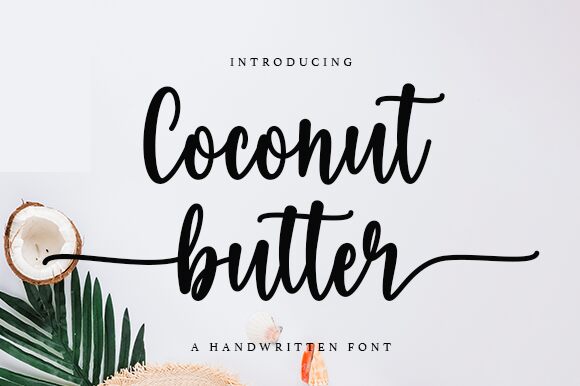
Coconut Butter
Coconut Butter, crafted by Wahyu Studio, is a captivating handwritten font that adds an artistic touch to any project. Its semi-condensed width allows for efficient use of space while maintaining legibility. Perfect for creating eye-catching logos and branding materials, this font exudes a playful yet sophisticated vibe. Enhance your social media posts with its unique charm or design elegant invitations and greeting cards effortlessly. Whether it's fashion blogs, food packaging, or children's books, Coconut Butter will infuse every project with a touch of whimsy and elegance that will surely captivate your audience.